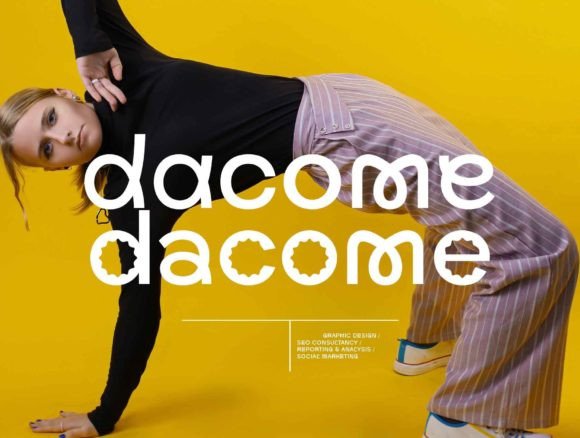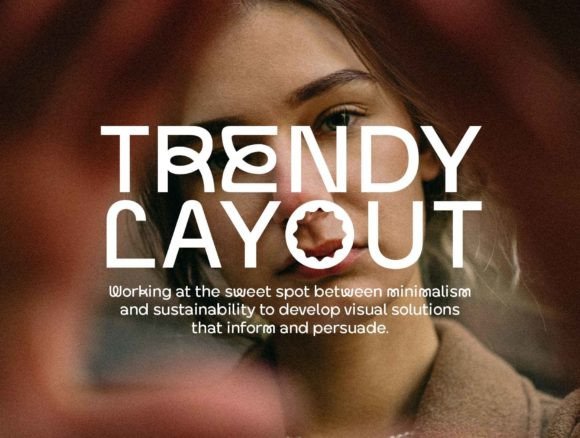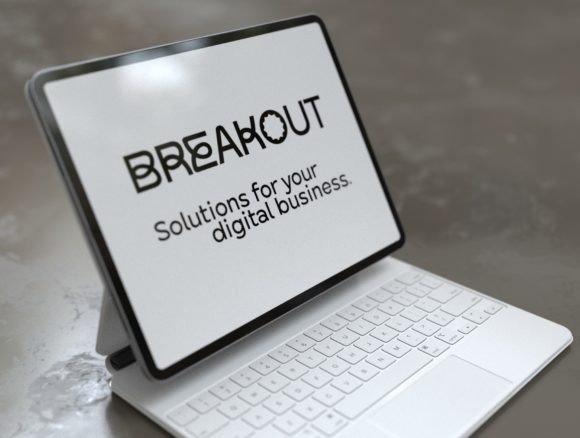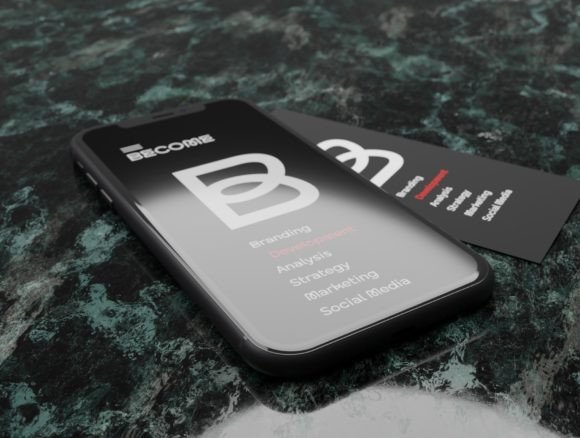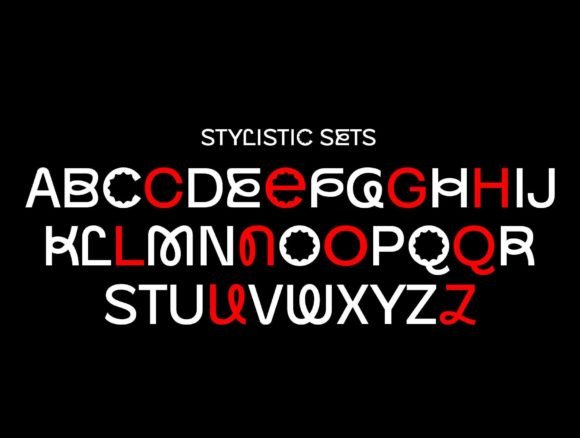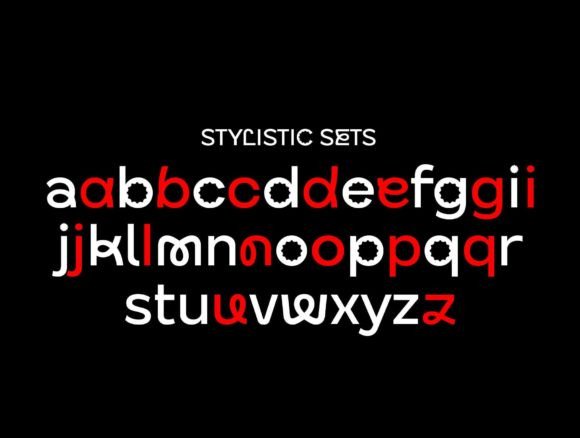
I still remember the frustration of working on a logo design project, only to hit a roadblock when it came to choosing the right font. My client wanted something modern, yet playful; something that would make their brand stand out. I scoured the internet, tried out countless fonts, but nothing seemed quite right. That was until I stumbled upon Become, a modern medium display font that has since become a staple in my design toolkit.
A First Impression of Become
Become is a stunning typography solution for logo design and brand identity. With its somewhat playful and decorative elements added to the glyphs, it offers a variety of spatial presentations by mixing carefully designed alternates. This font is perfect for designers, crafters, and creative hobbyists looking to elevate their designs.
An Honest Review of Become
- ✨ Unique and modern design: Become has a fresh and contemporary look that sets it apart from other fonts.
- ✅ Highly versatile: With its range of alternates and OpenType features, Become can be used in a variety of design contexts.
- 💡 Inspires creativity: The font’s playful elements encourage experimentation and creativity.
While Become is an excellent font, there are a few things to keep in mind:
- ⚠️ May not be suitable for body text: Due to its decorative nature, Become is best used for headings and titles.
- 🤔 Can be overwhelming: With so many alternates and features, it can be challenging to navigate and choose the right one.
The Designer Inspiration Behind Become
The designer behind Become drew inspiration from the world of art and design. With a passion for typography and a keen eye for detail, they set out to create a font that would be both modern and timeless. The result is a font that is both elegant and playful, perfect for designers looking to make a statement.
Q: What is the best way to use Become in my designs?
A: Become is best used as a display font for headings and titles. Experiment with different alternates and OpenType features to find the perfect look for your design.
Q: Is Become suitable for body text?
A: No, Become is not suitable for body text. Its decorative nature makes it best suited for headings and titles.